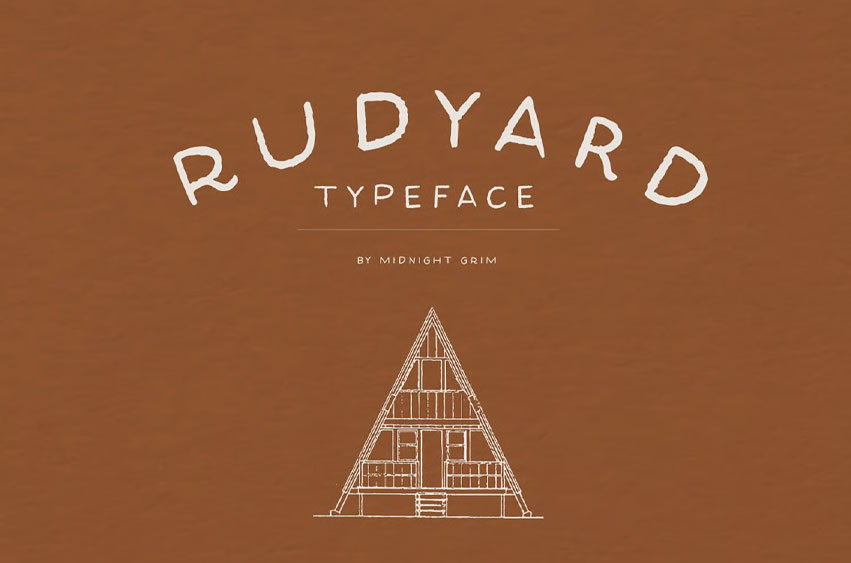
Rudyard Font
Rudyard Font is a rustic sans-serif, handmade and full of personality! Created to evoke the weathered style of the great outdoors, this typeface is an amazing tool for infinite designs, including logos, apparel, posters, and websites. Includes two sets of uppercase characters, numbers, punctuation, and multi-language characters.